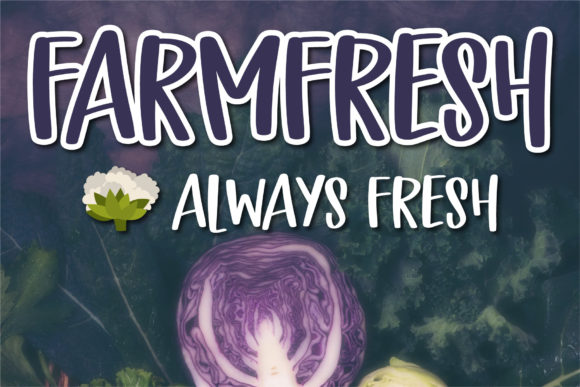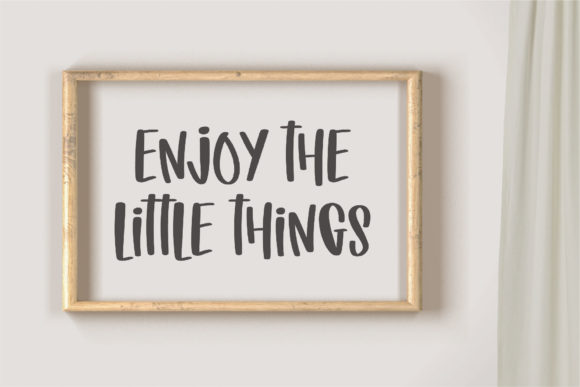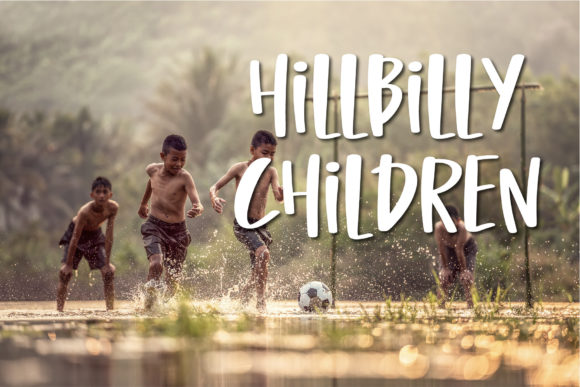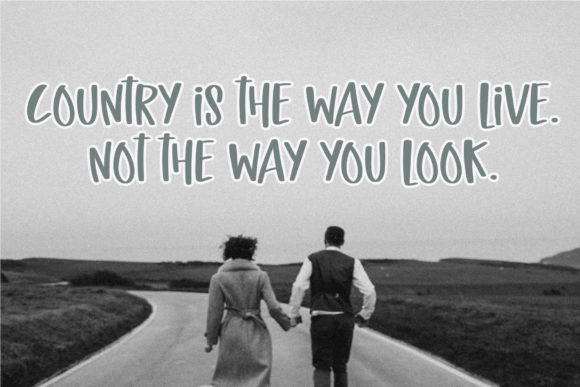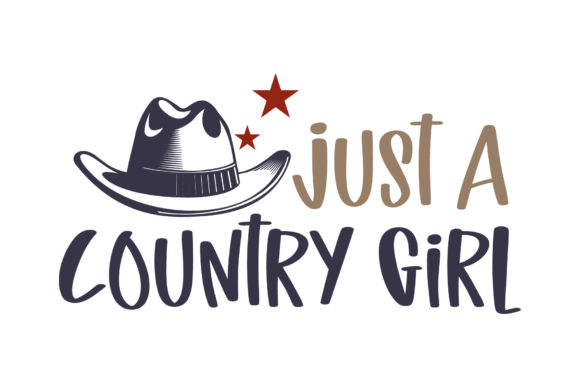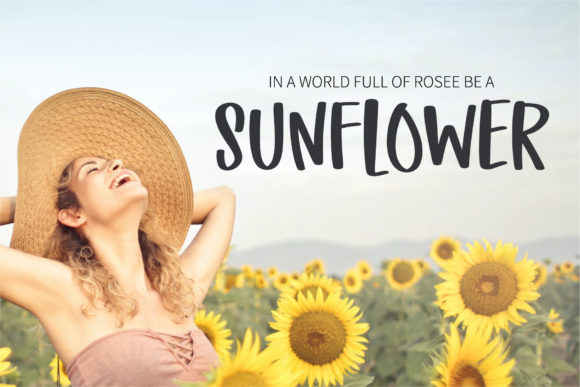
Introduction to Hillbilly Font
Do you remember the thrill of creating a DIY chalkboard sign for a family gathering or a rustic-themed wedding? The cursive handwriting, the distressed texture, and the overall charm it brings to the design. For designers and crafty individuals, finding the perfect font to replicate that authentic, handwritten look can be a challenge. That’s where the Hillbilly Font comes in – a high-quality, free download that’s perfect for adding a personal touch to your creative projects.
Whether you’re working on a design resource for teaching materials or creating a custom sign for a special occasion, the Hillbilly Font is an excellent choice. Its transparent background and informal, friendly vibe make it ideal for adding a realistic feel to your designs. With its authentic look and feel, you can rest assured that your project will stand out from the crowd.
In this article, we’ll dive into the world of Hillbilly Font and explore its features, uses, and benefits. Whether you’re a seasoned designer or a beginner looking for a new design resource, you won’t want to miss out on this valuable information.
Key Features of Hillbilly Font
- High-quality font design with a unique, rustic aesthetic, perfect for adding a country charm to any creative project.
- Designed with a high level of detail and texture, Hillbilly Font is a standout choice for designers seeking a high-quality, authentic look.
- Perfect for use in branding, advertising, and editorial design projects where a distinctive, country-inspired look is desired.
Honest Review: Hillbilly Font
I recently came across the Hillbilly Font while searching for a design resource for a creative project, and I’m excited to share my thoughts on it. As a designer, I’m always on the lookout for high-quality fonts that can add a unique touch to my work.
The Hillbilly Font is a free download, which is always a bonus. It’s a great option for designers who are working on a tight budget or need a quick solution for a project. Upon closer inspection, I was impressed by the level of detail and craftsmanship that went into designing this font.
- ✨ Unique and quirky design style that’s perfect for adding a touch of personality to a project
- ✨ High-quality design that’s perfect for printing or using on-screen
- ✨ Transparent background, making it easy to use with a variety of design elements
- ⚠️ Limited character set, which may not be suitable for longer blocks of text
- ⚠️ Not as versatile as some other fonts, which may limit its use in certain design contexts
Overall, I’m impressed with the Hillbilly Font and think it’s a great addition to any designer’s toolkit. While it may have some limitations, its unique design style and high-quality design make it a great option for the right project.
Tips for Getting the Most Out of Hillbilly Font
Use the Hillbilly Font in conjunction with other design elements to create a unique and eye-catching design. Experiment with different font sizes, colors, and combinations to find the perfect look for your creative project. You can also use the font to create a high-quality logo or branding material.
The Hillbilly Font is perfect for a variety of creative projects, including: